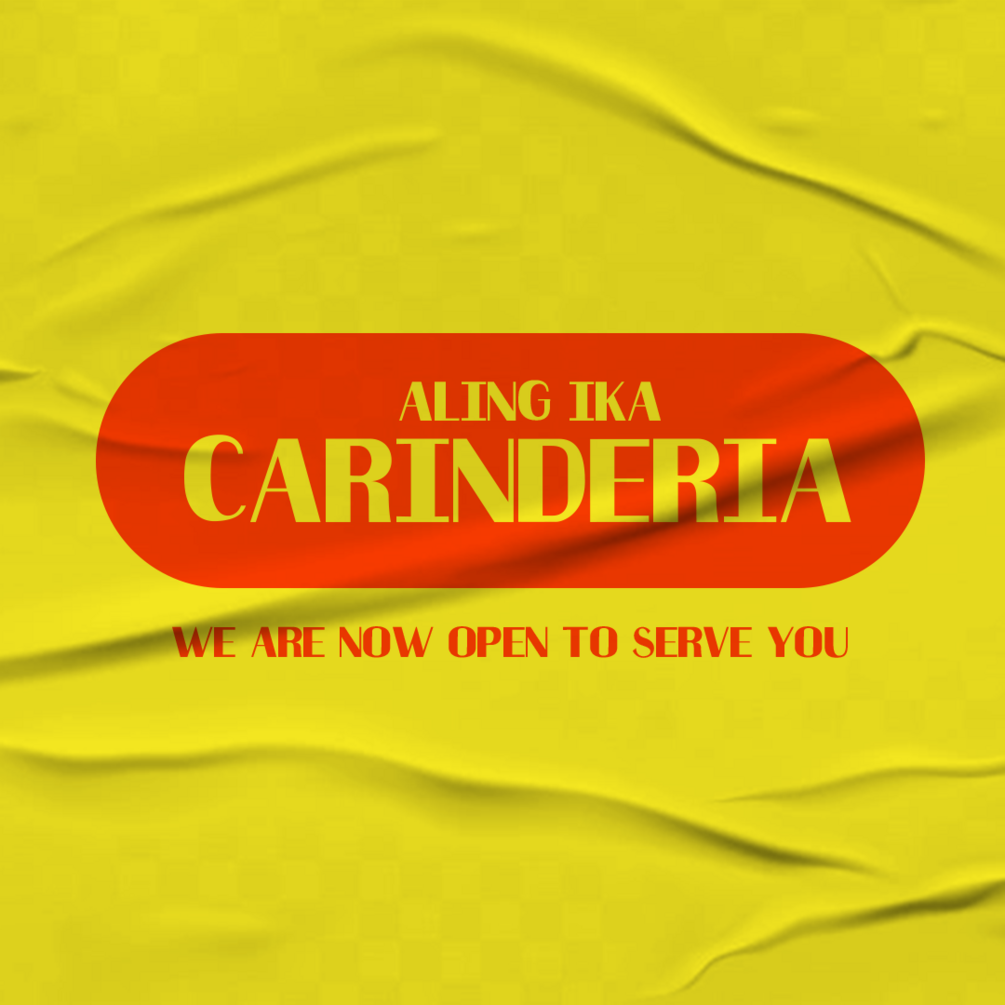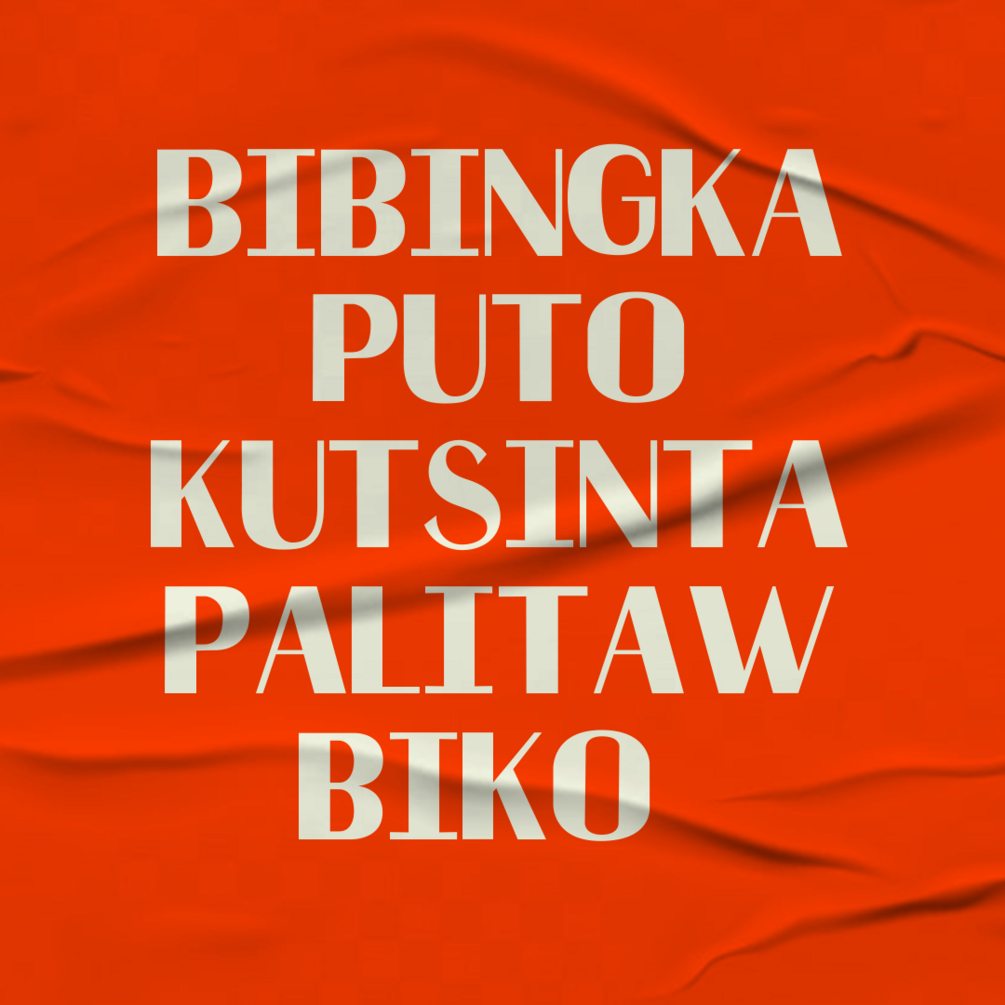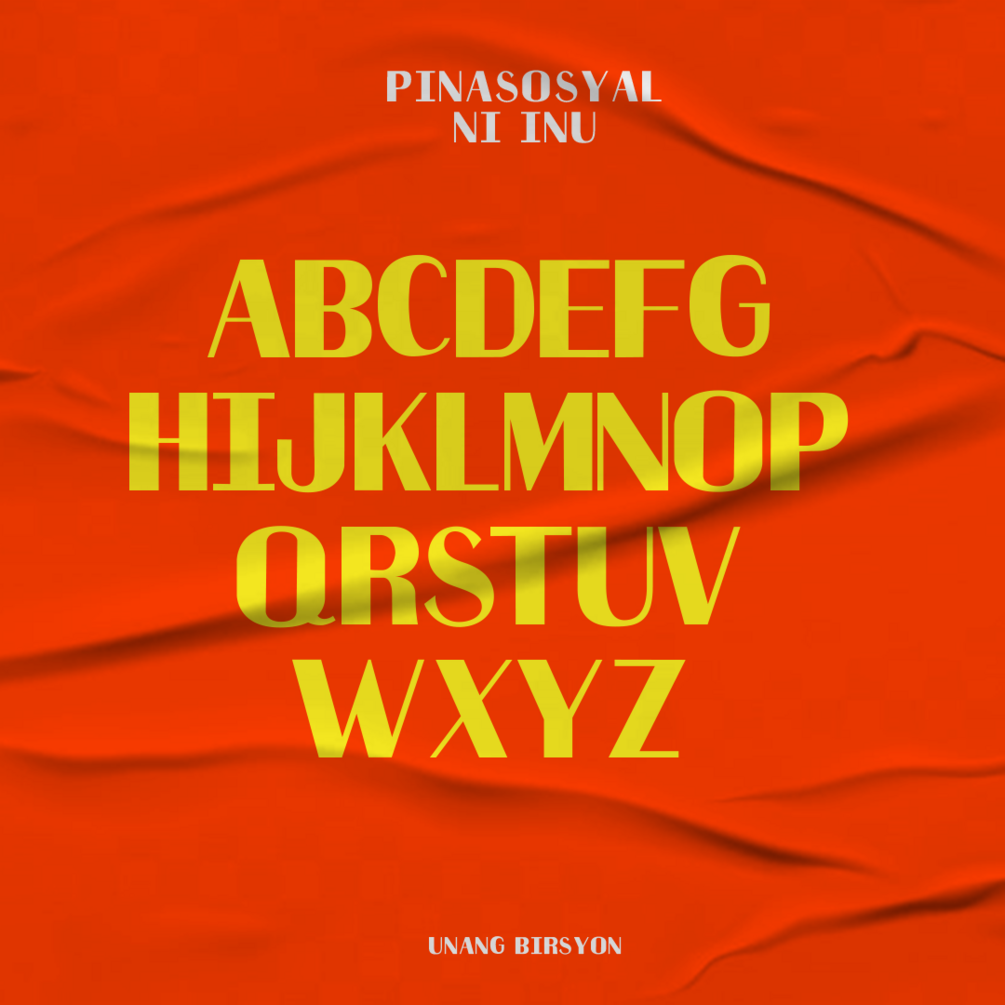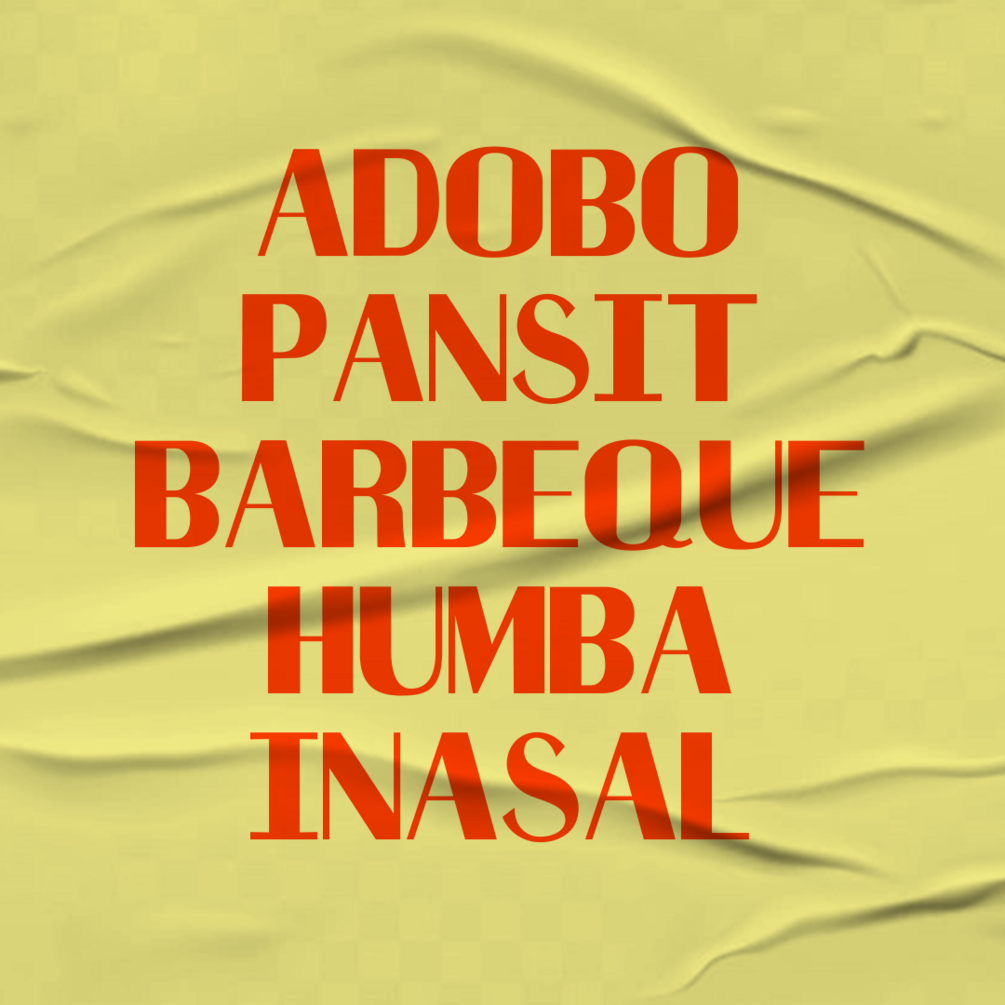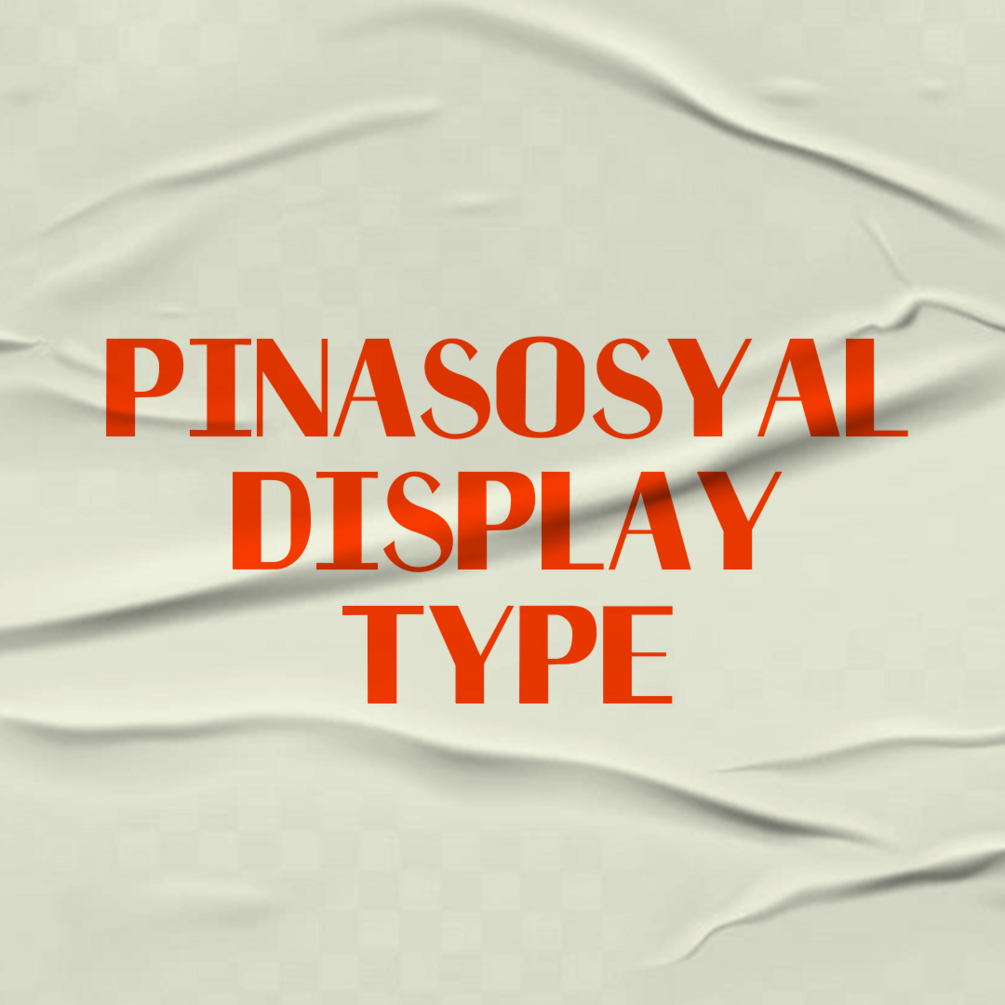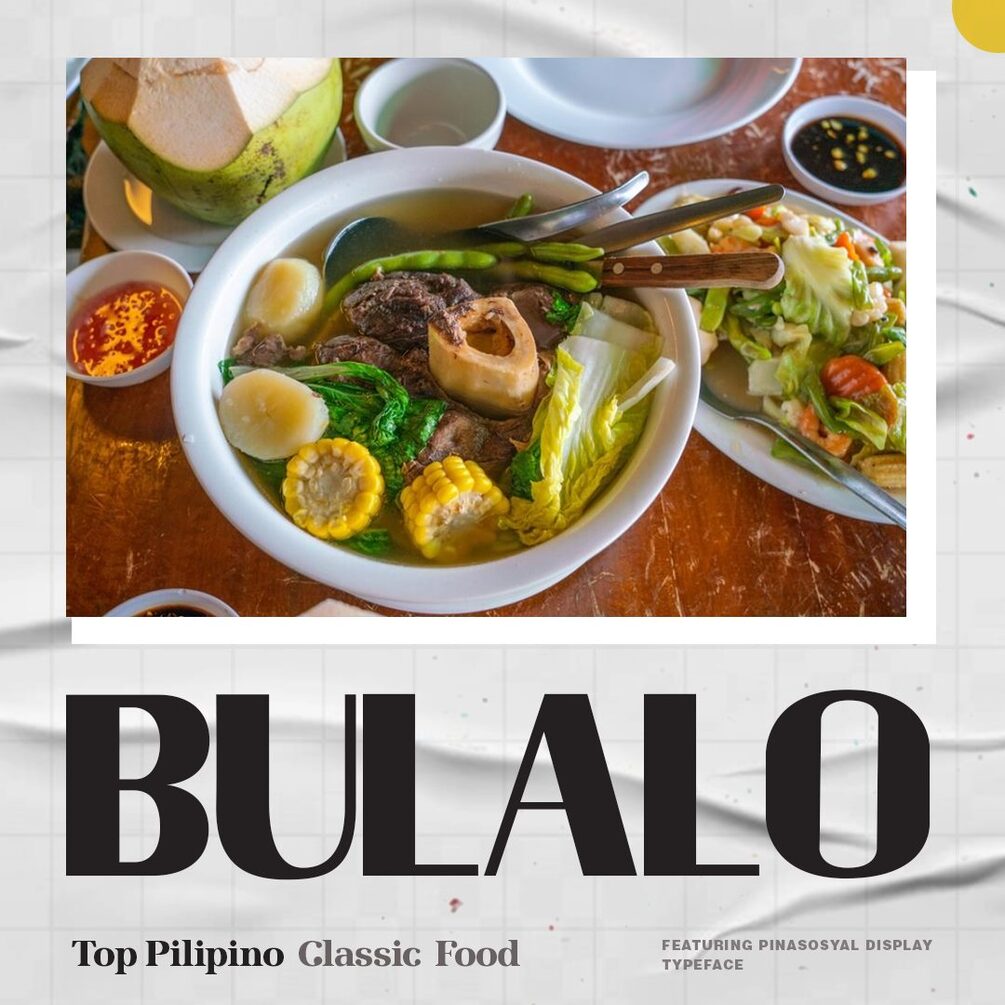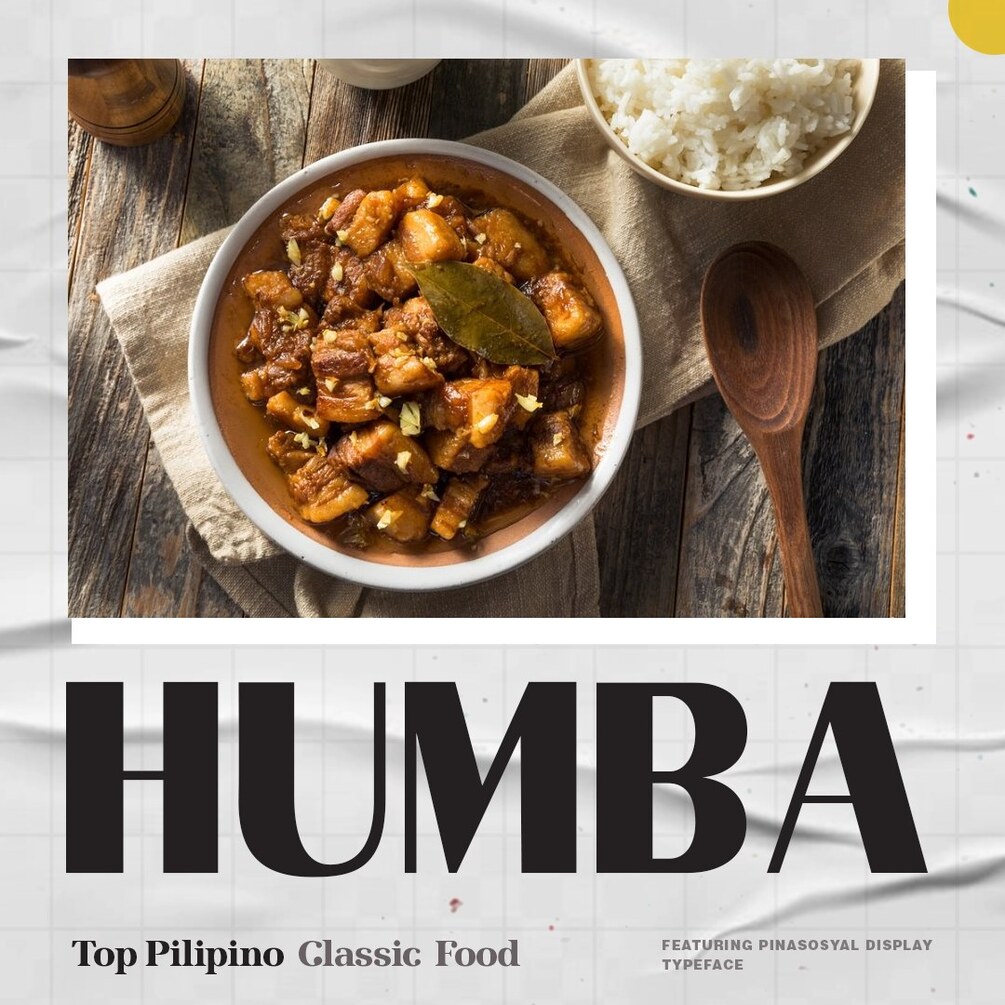
Pinasosyal Display Type
Pinasosyal display type is derived from the word Pinas + Sosyal.
Each letter is purposefully designed to resemble a high-end food.
Filipino cuisine is known for its flavorful food and has a rich history when it comes to delicacies.
The problem we solved was to provide letterforms that reflected what they were selling in order to enhance the appetite of the eaters.